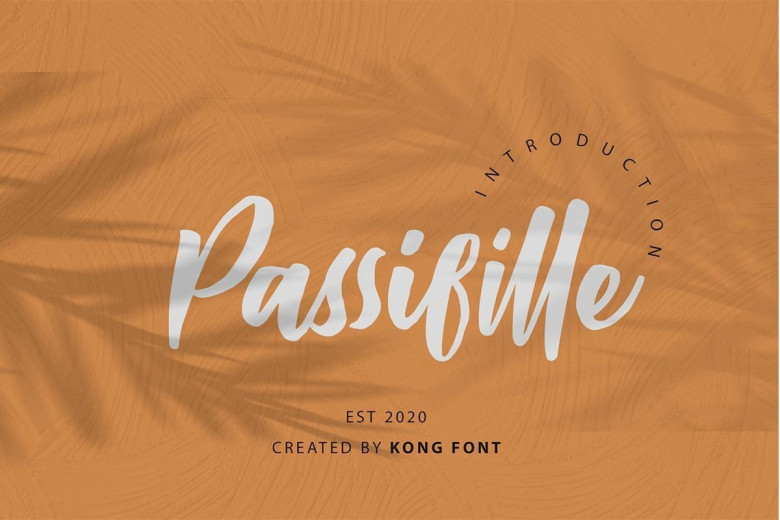
Passifille Bold Script Font
Introducing Passifille Font is a simple and very casual bold script typeface. Passifillealso has 3 additional styles that you will like, these fonts are perfect for logos, quotes, clothing designs, wedding invitations, and more.